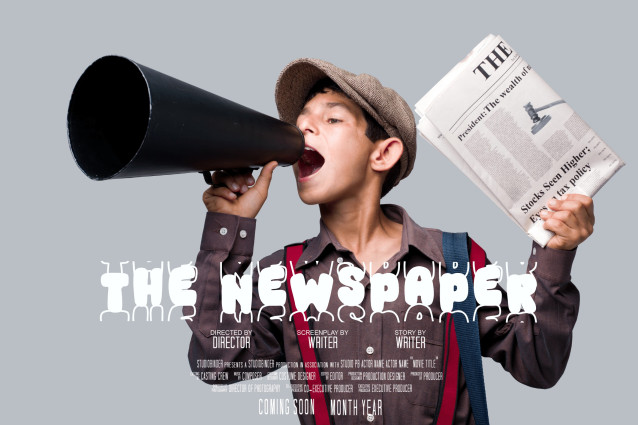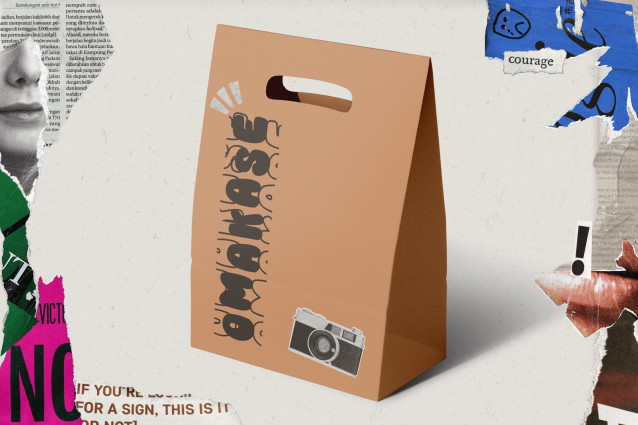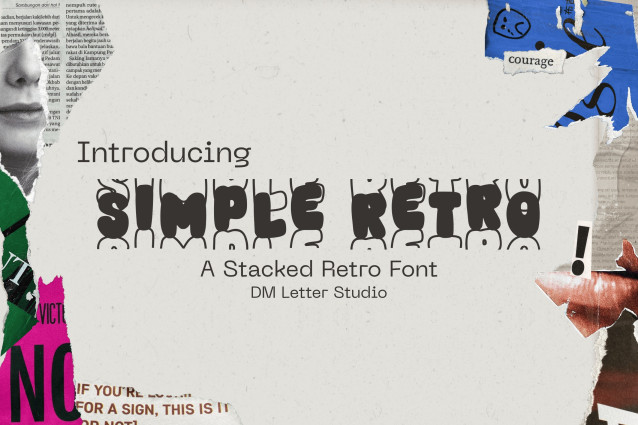
Simple Retro Font
Simple Retro Font is a charming and nostalgic stacked font inspired by the bold aesthetics of retro typography. With clean lines, a soft rounded structure, and layered letterforms, this font is perfect for projects that want to evoke vintage warmth with a modern twist. Ideal for logos, posters, social media graphics, product packaging, and branding, Simple Retro delivers personality in every letter.